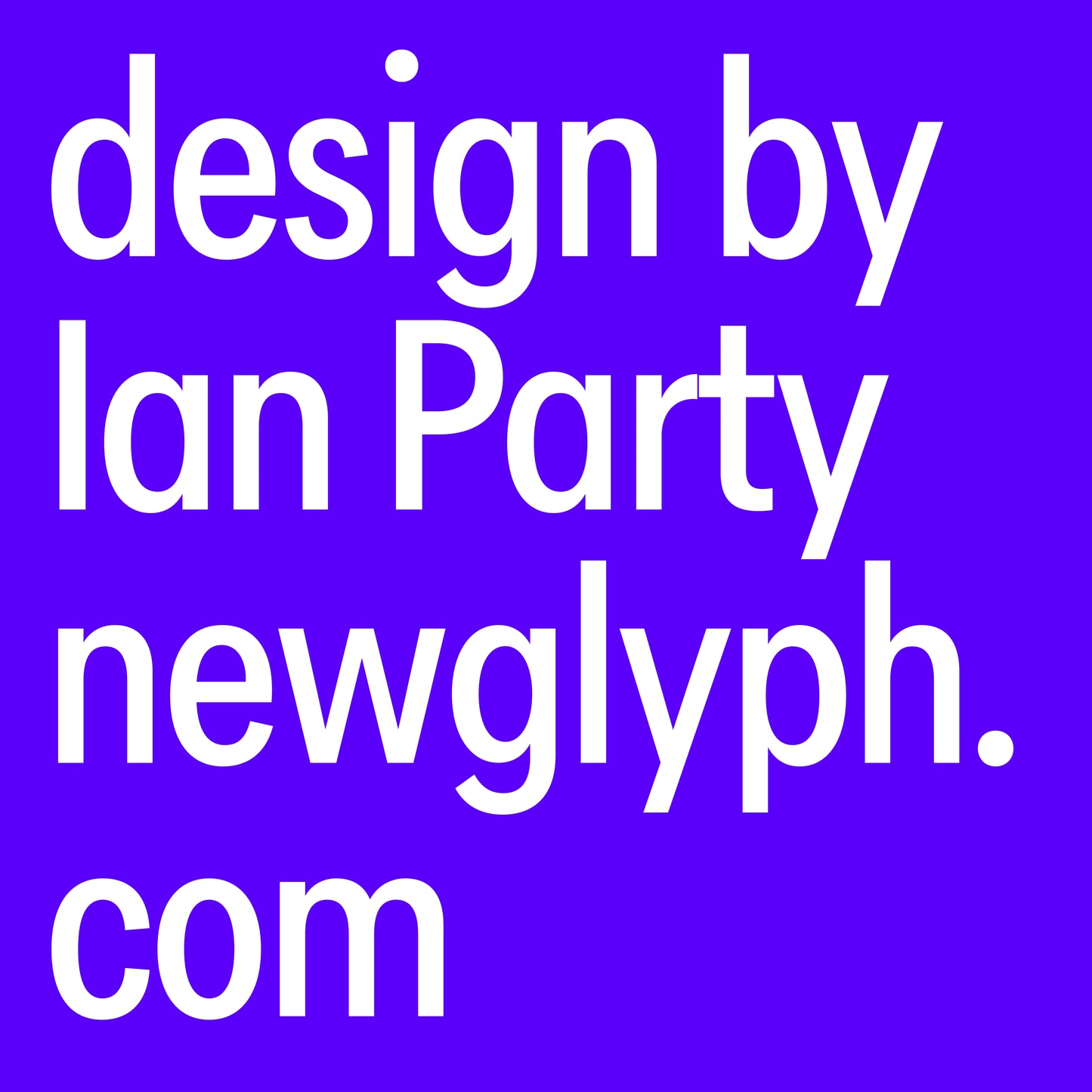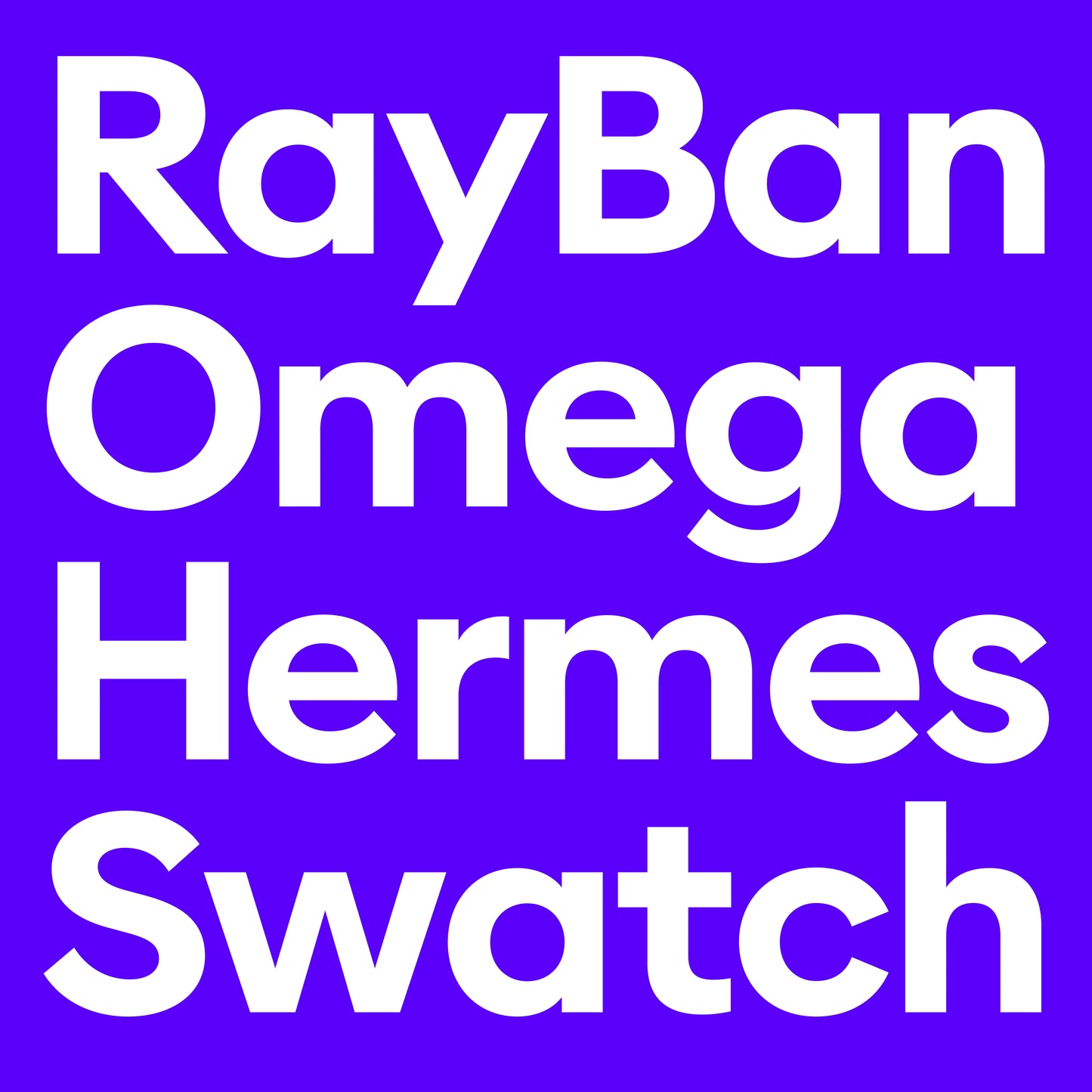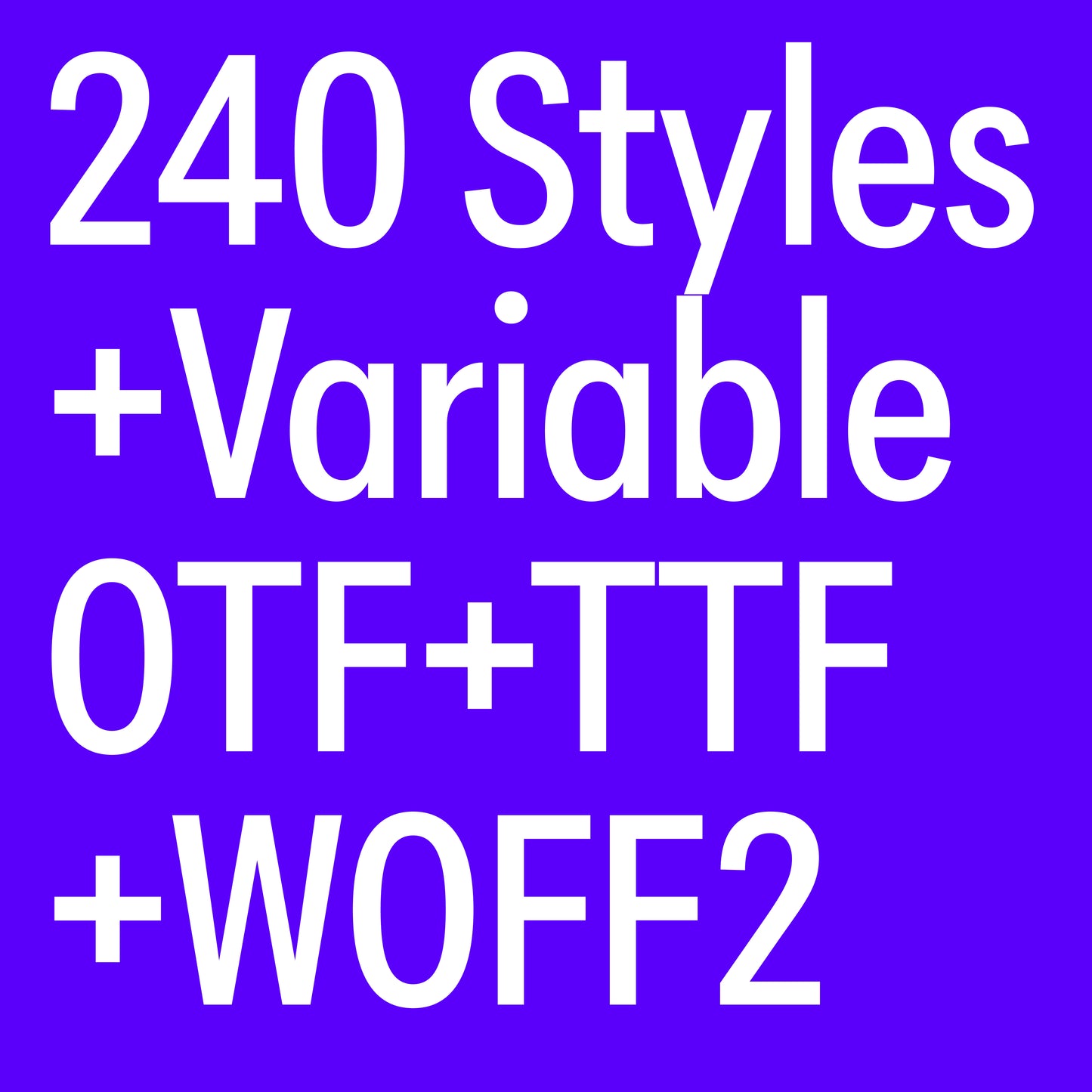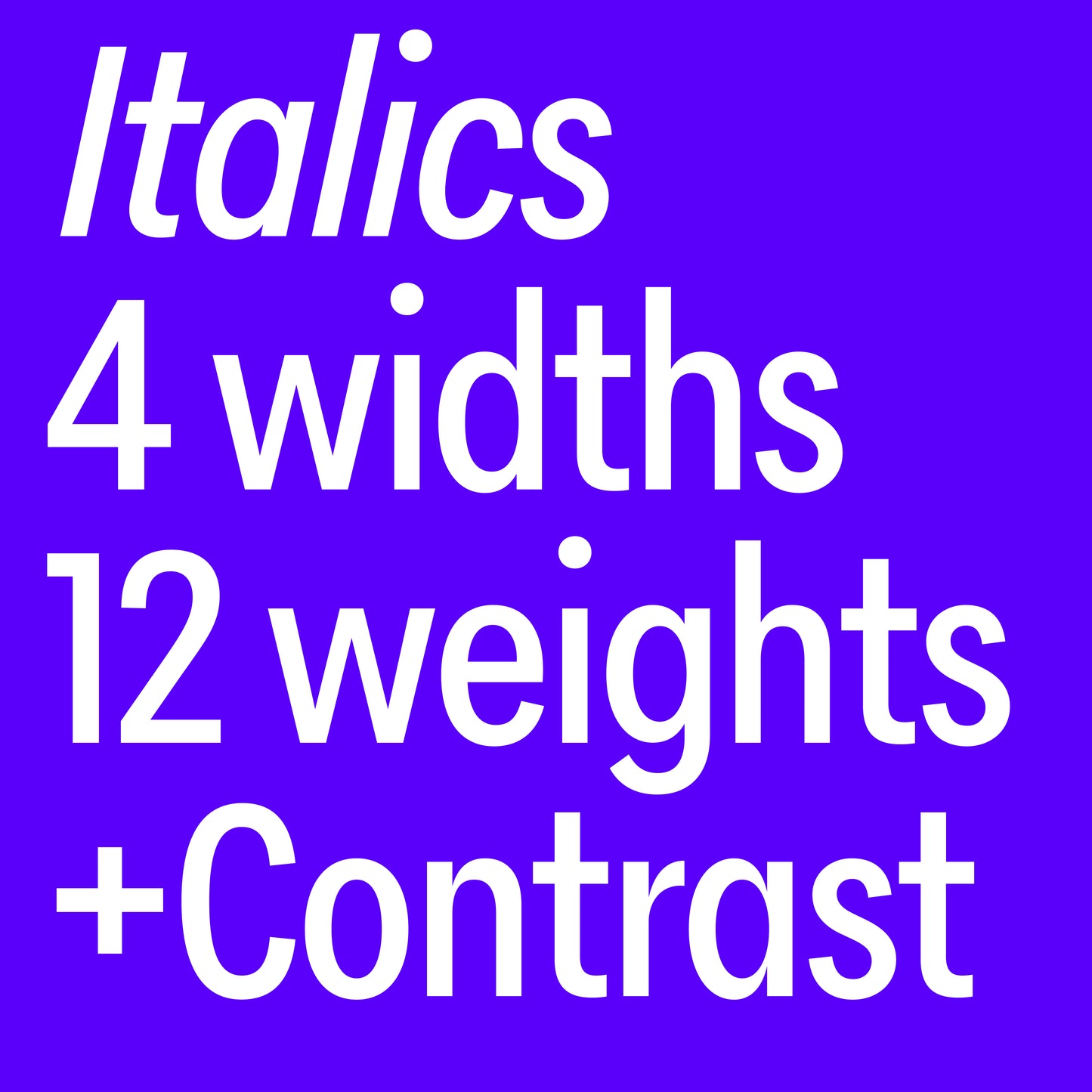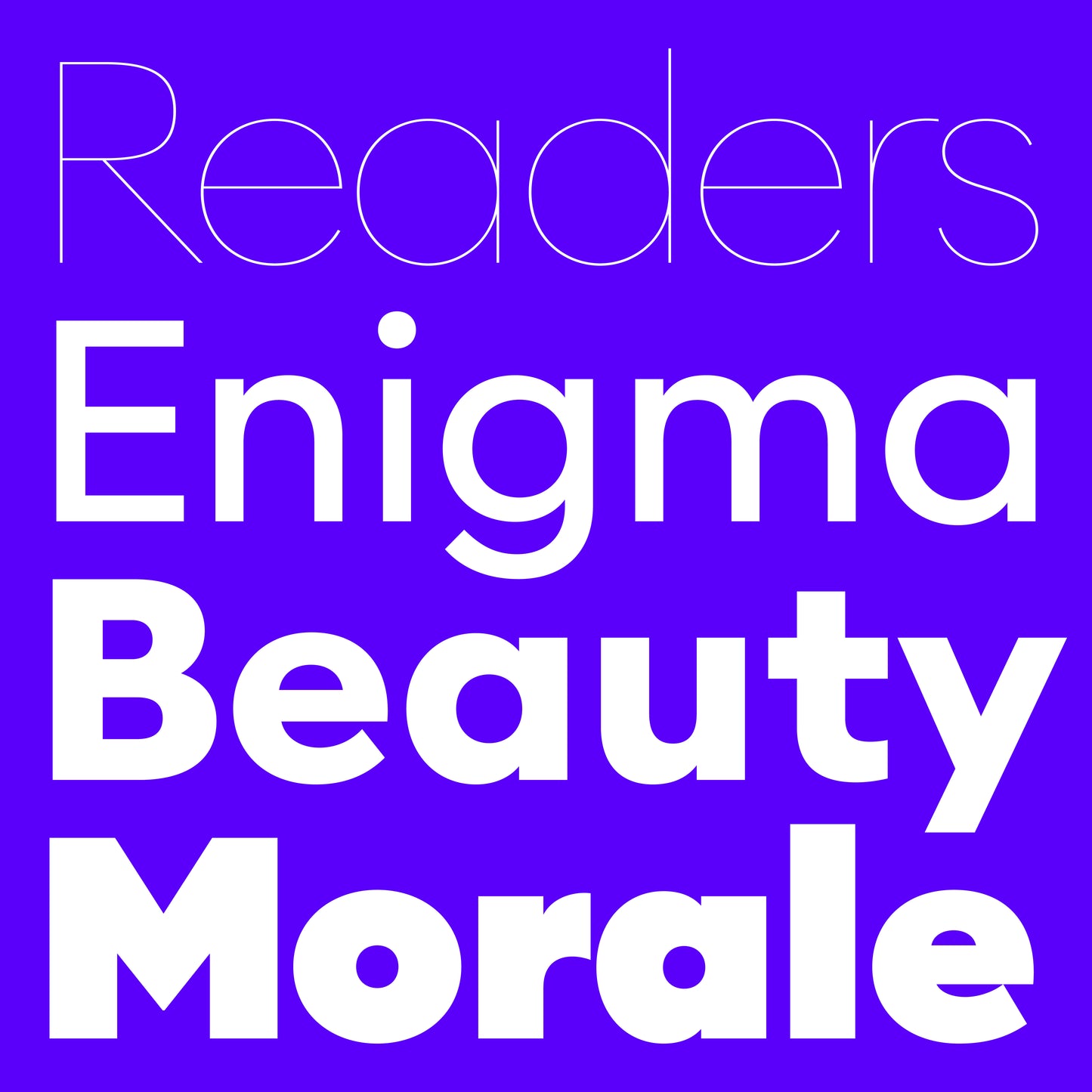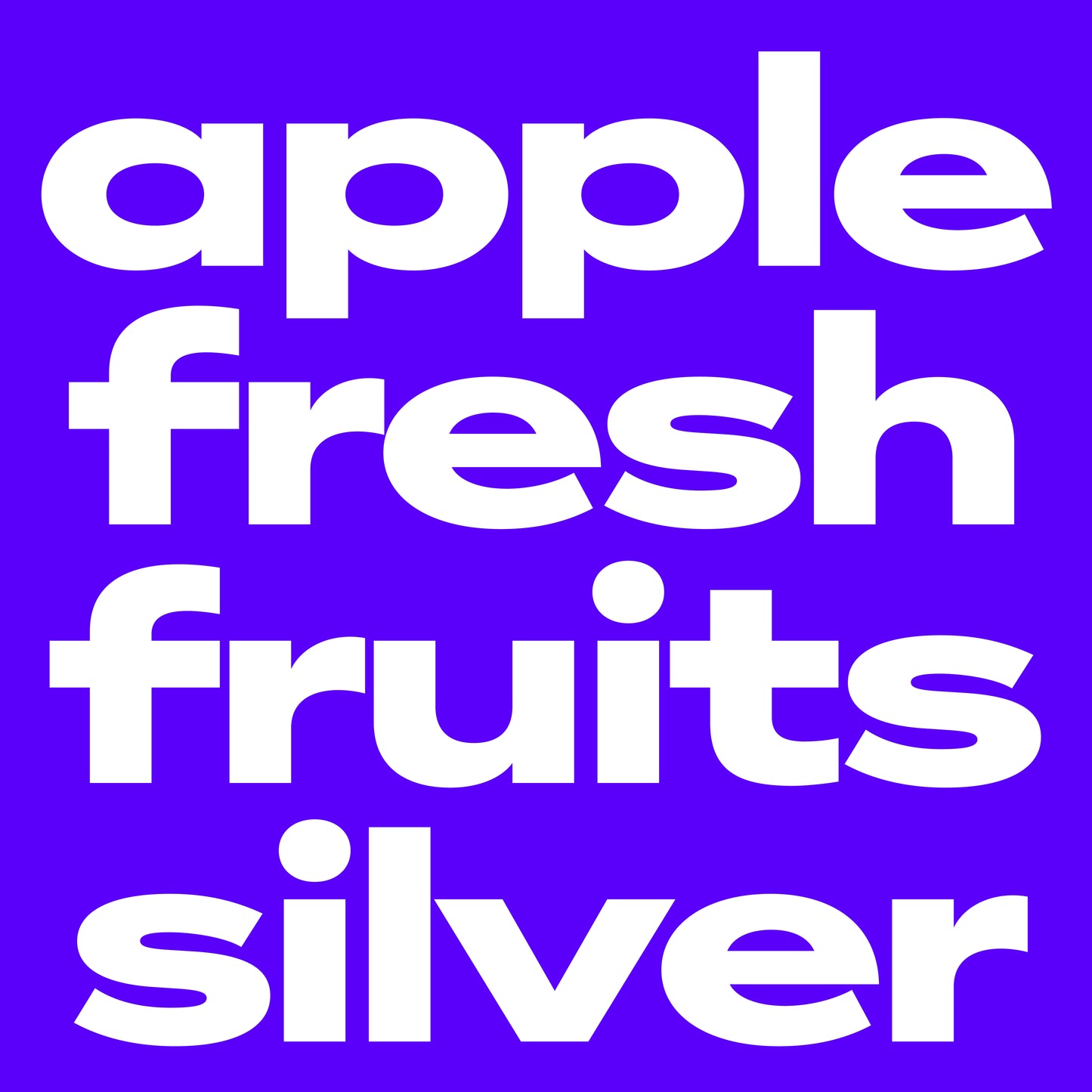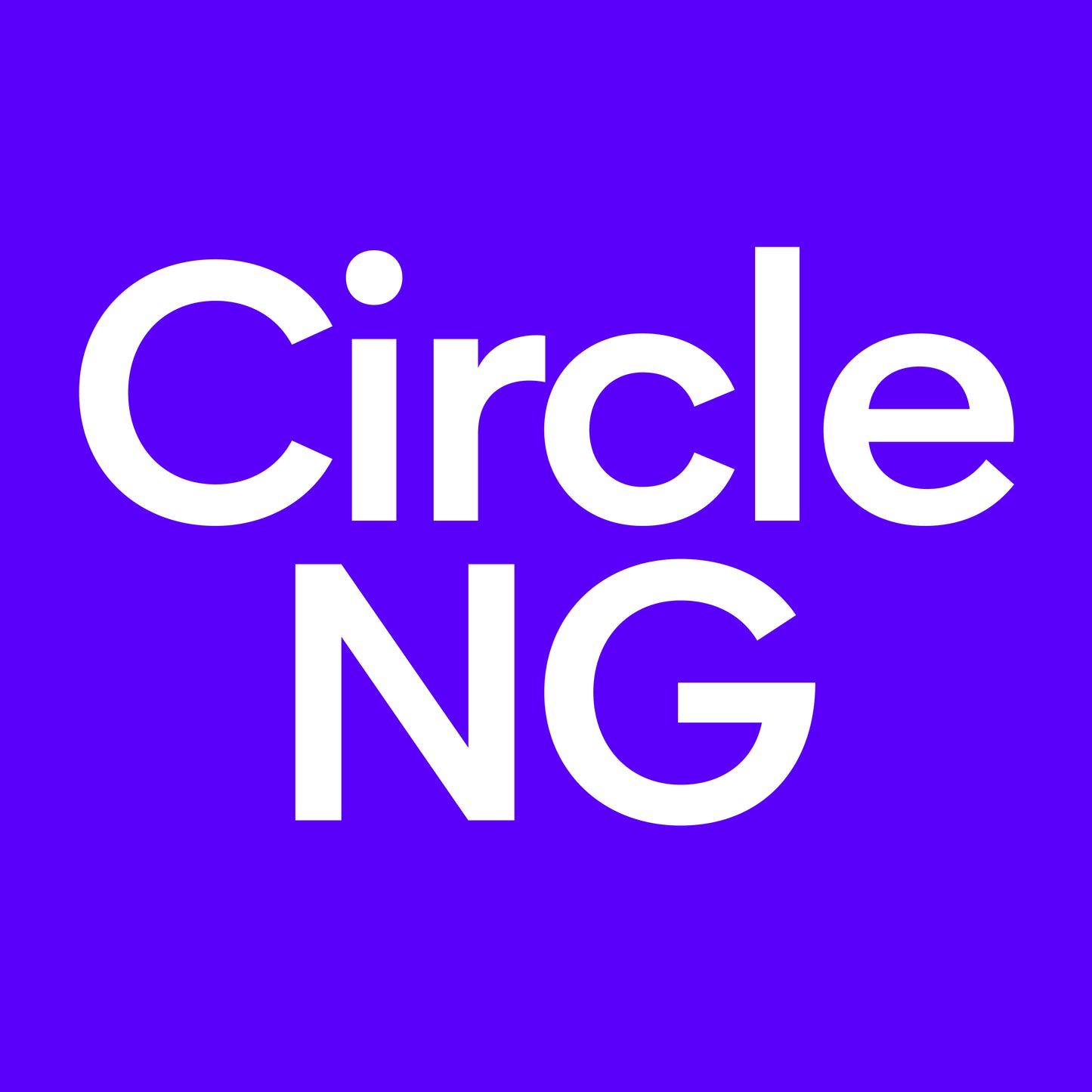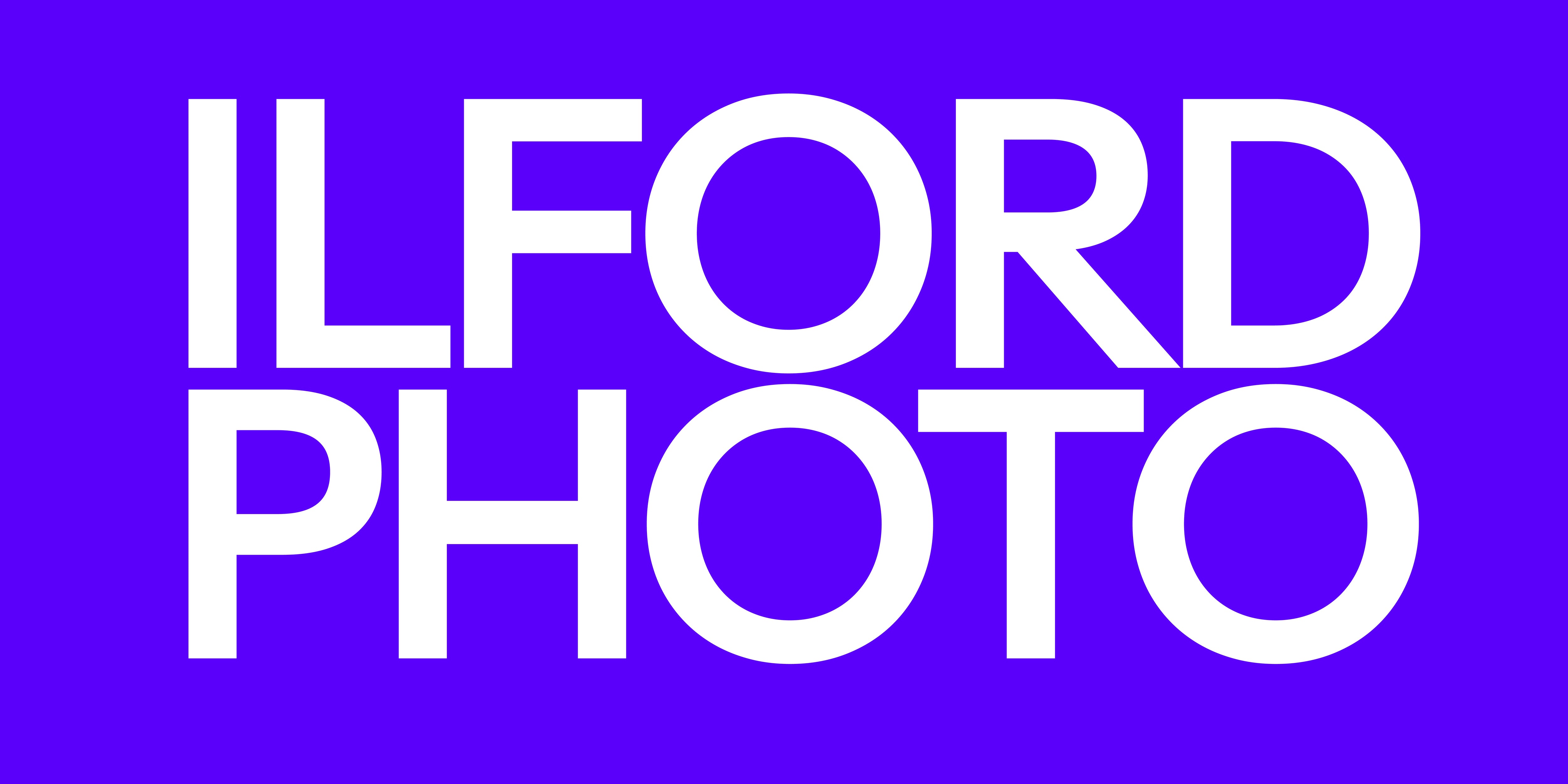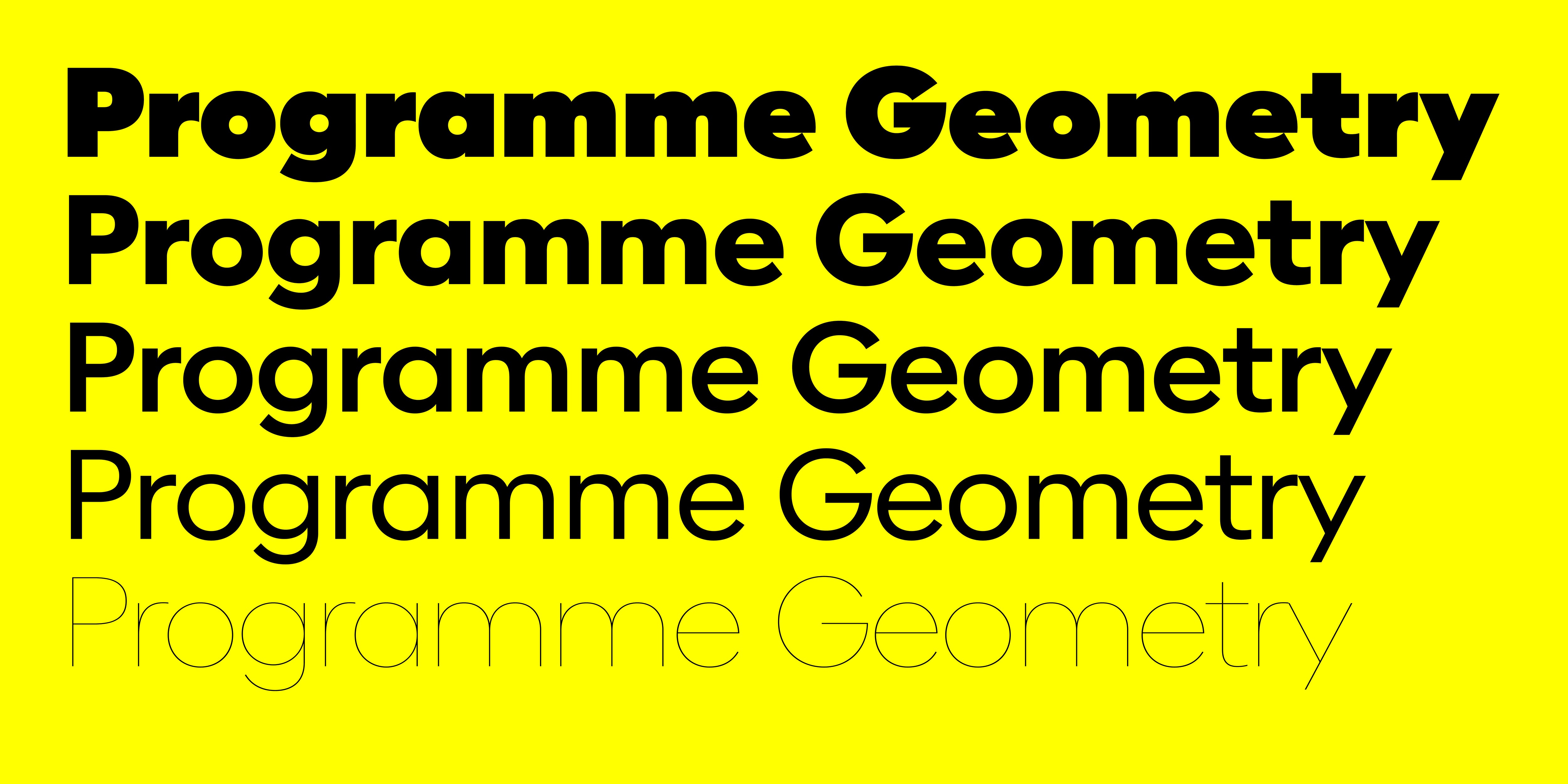
Circle NG
Circle NG,  designed by Ian Party, is a fresh take on the classic geometric sans, inspired by the bold design movements of the 1920s and 1930s. Built from pure shapes—circles, triangles, and rectangles—it strikes the perfect balance between precision and playfulness, making it ideal for modern branding, editorial, and digital design.
As a variable font, Circle NG offers full control over weight and width, giving designers endless creative flexibility. Whether you need ultra-light elegance or bold impact, this typeface adapts seamlessly to your vision.
With minimal contrast, even proportions, and a structured yet dynamic feel, Circle NG is built for versatility.